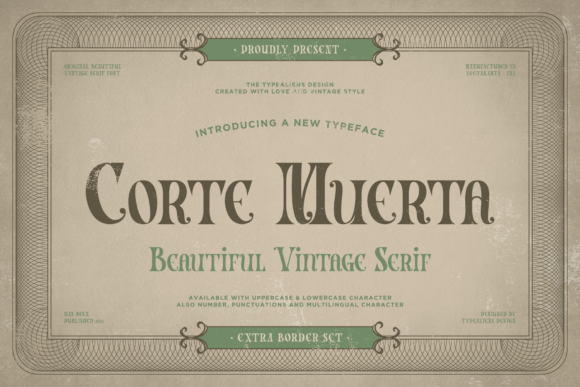
Corte Muerta Font: A Unique and Spooky Serif Font for Creative Projects
Corte Muerta is a distinctive and intriguing serif font that has gained popularity among designers and creatives. Its unique blend of classic and modern elements, along with its quirky ornaments and varied characters, make it an excellent choice for a wide range of projects. In this article, we’ll explore the features and benefits of Corte Muerta font, and discuss how it can be used to add a touch of elegance and whimsy to your designs.
What is Corte Muerta Font?
Corte Muerta is a serif font that stands out from the crowd due to its unusual and somewhat spooky appearance. The font features a range of ornaments and characters that give it a unique and eye-catching look. With its mix of classic and modern elements, Corte Muerta is a versatile font that can be used for both modern and retro creative projects.
Key Features of Corte Muerta Font
- Unique Ornaments: Corte Muerta features a range of quirky ornaments that add a touch of whimsy to your designs.
- Varied Characters: The font includes multiple characters, giving you a range of options for customizing your text.
- Serif Design: Corte Muerta’s serif design gives it a classic and sophisticated look that’s perfect for a range of projects.
- Modern and Retro Appeal: The font’s blend of modern and retro elements makes it suitable for both contemporary and vintage-inspired designs.
Benefits of Using Corte Muerta Font
Corte Muerta font offers a range of benefits for designers and creatives. Here are some of the advantages of using this unique font:
Advantages of Corte Muerta Font
- Stand Out from the Crowd: Corte Muerta’s distinctive design ensures that your text will stand out from the crowd and grab attention.
- Add a Touch of Whimsy: The font’s quirky ornaments and varied characters add a touch of whimsy and playfulness to your designs.
- Versatility: Corte Muerta is a versatile font that can be used for a range of projects, from modern and retro designs to elegant and sophisticated text.
How to Use Corte Muerta Font in Your Designs
Corte Muerta font can be used in a variety of design projects, from print and digital media to branding and advertising. Here are some ideas for using this unique font:
Design Ideas for Corte Muerta Font
- Logos and Branding: Use Corte Muerta to create a distinctive and memorable logo or brand identity.
- Print Materials: The font is perfect for print materials such as business cards, brochures, and posters.
- Digital Media: Corte Muerta can be used for digital media such as social media graphics, website headers, and email newsletters.
- Advertising: The font’s unique design makes it an excellent choice for advertising campaigns, including billboards, print ads, and online ads.
Tips for Getting the Most Out of Corte Muerta Font
To get the most out of Corte Muerta font, here are some tips and best practices:
Tips for Using Corte Muerta Font
- Experiment with Different Sizes: Corte Muerta looks great in a range of sizes, from small and elegant to large and bold.
- Play with Ornaments: The font’s ornaments and characters can add a touch of whimsy to your designs, so don’t be afraid to experiment.
- Pair with Other Fonts: Corte Muerta can be paired with other fonts to create a unique and eye-catching combination.
- Use Online Font Tools: Online font tools can help you to customize and edit Corte Muerta font to suit your design needs.
Corte Muerta font is a unique and versatile serif font that offers a range of benefits for designers and creatives. With its quirky ornaments, varied characters, and classic design, it’s an excellent choice for a wide range of projects. Whether you’re looking to add a touch of elegance and sophistication or whimsy and playfulness to your designs, Corte Muerta font is definitely worth considering.
- What is Corte Muerta font? Corte Muerta is a unique and somewhat spooky serif font featuring little ornaments and different characters.
- What is Corte Muerta font used for? Corte Muerta font can be used for a range of projects, including logos, branding, print materials, digital media, and advertising.